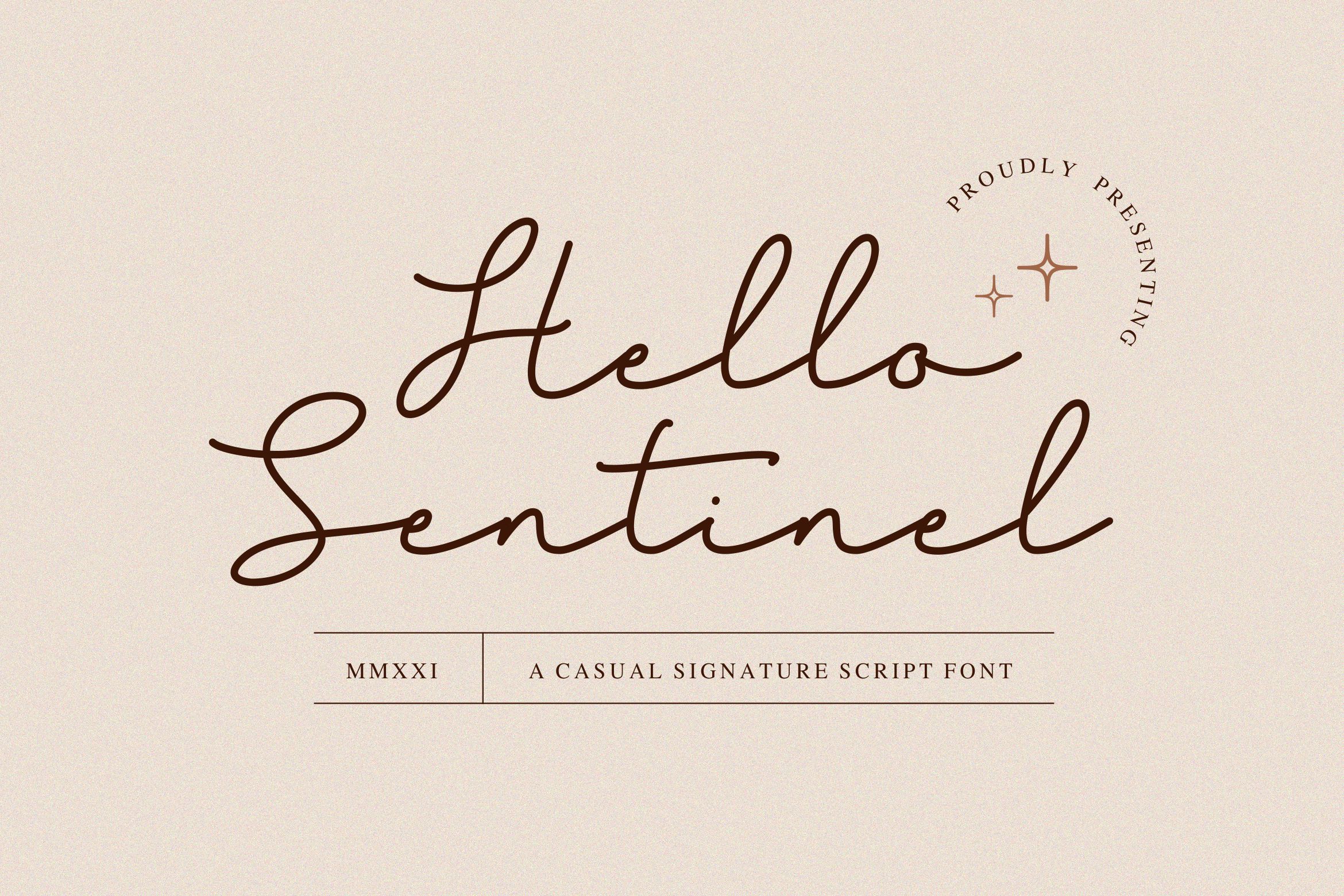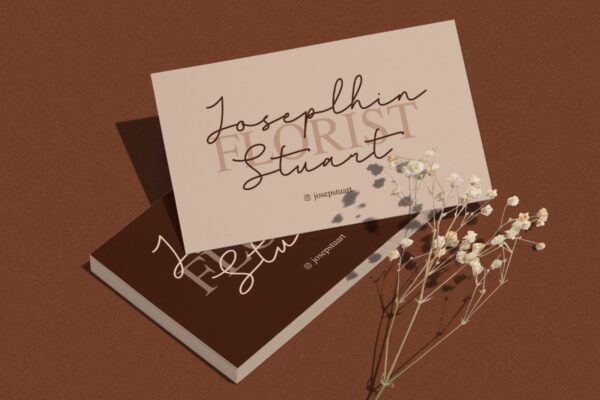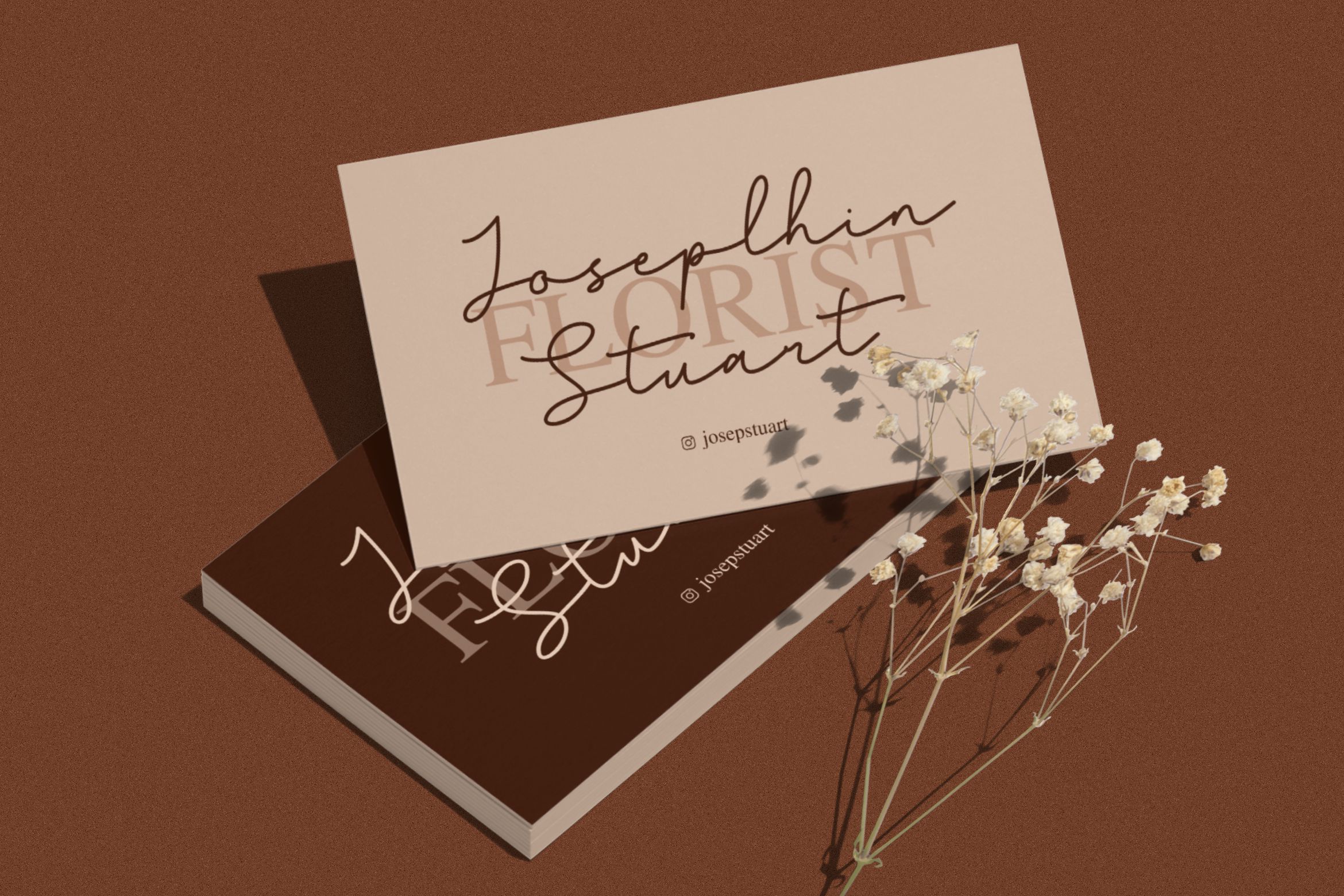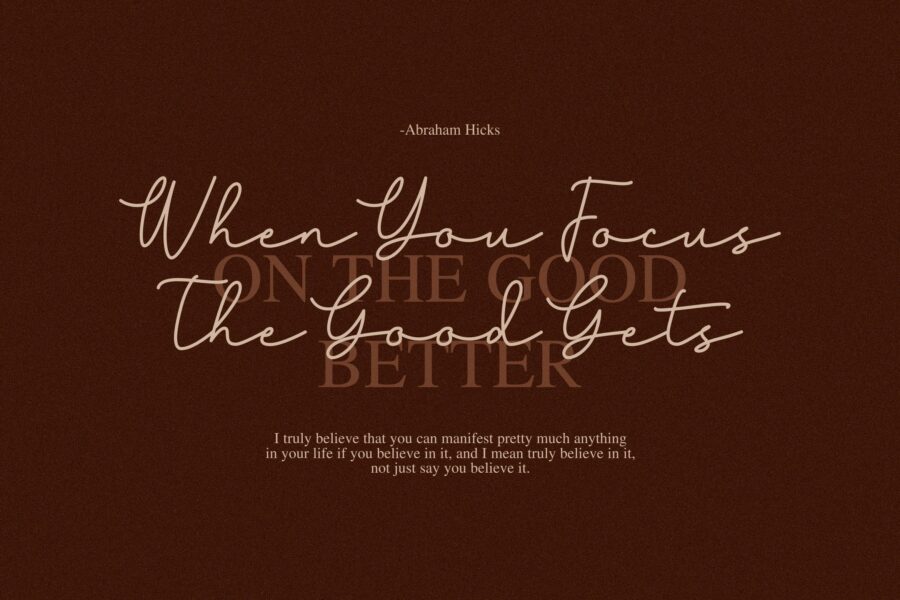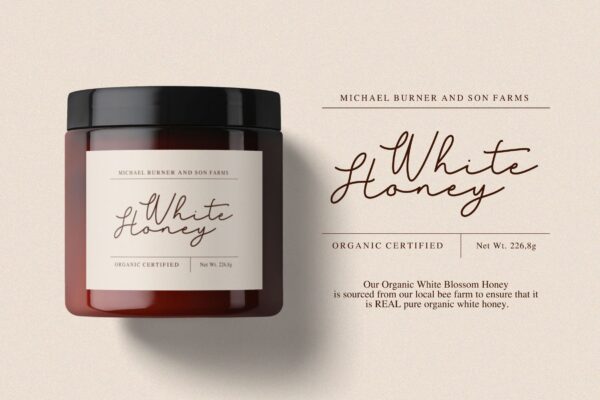
Sentinel is a casual signature script font that captures the essence of effortless elegance and personal charm. Its smooth, flowing strokes mimic natural handwriting, making it the perfect choice for branding projects, social media posts, product packaging, or any design that calls for a handwritten, personal touch. The font’s delicate curves and minimalist style evoke a sense of authenticity and warmth.
With its complete set of uppercase and lowercase letters, numbers, punctuation, and multilingual characters, Sentinel is both beautiful and functional. Ideal for wedding stationery, logos, business cards, quotes, and lifestyle blogs, this font adds a graceful flair without being overly ornate. It’s a refined tool for creatives who seek a balance between modern simplicity and classic handwriting.